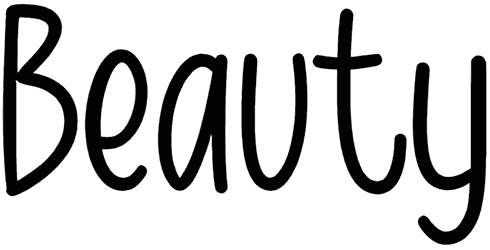
Beauty Font
How beautiful and natural your design will be if you set the Beauty font. The letters of this handwritten font are soft and minimal, and you can totally count on them to adorn your daily Instagram story or a bakery façade. Now, it’s time to be creative. Use this script font to adorn your design and surprise your followers.